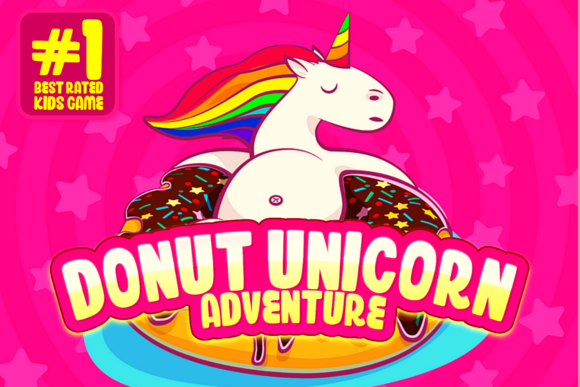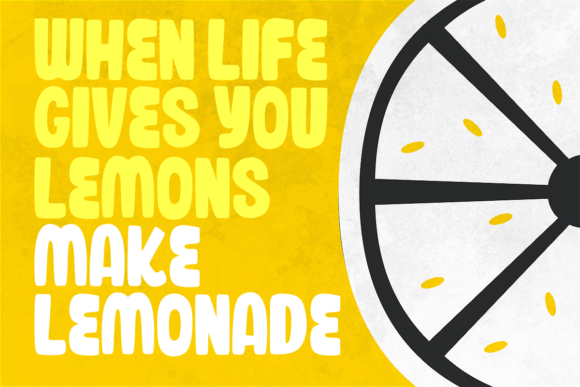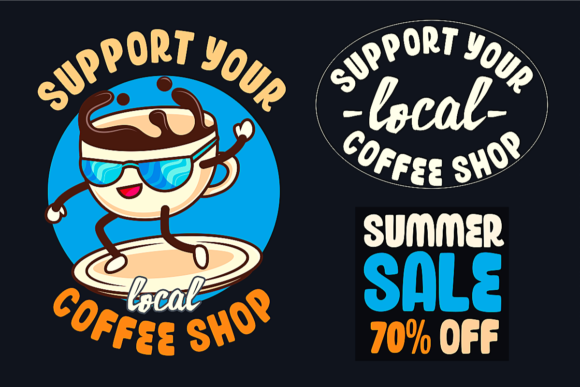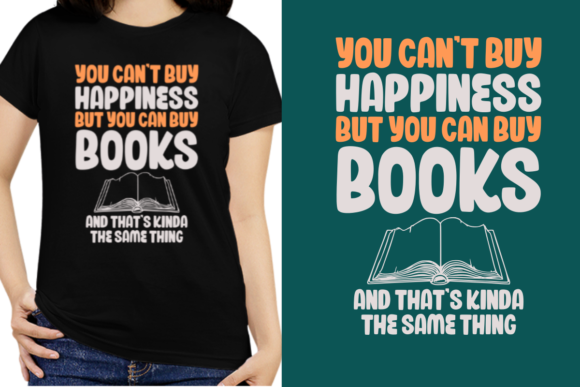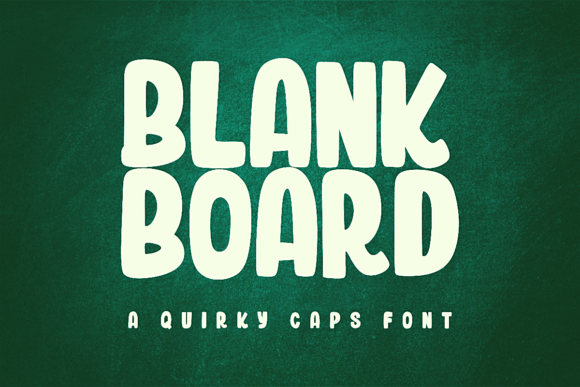
Bring Your Designs to Life with Blank Board Font
Have you ever stared at a blank canvas, unsure of where to start? The blank page can be intimidating, but it’s also an opportunity to create something truly unique. For designers, this moment of uncertainty is a chance to unleash their creativity and bring their ideas to life.
That’s where Blank Board Font comes in – a bold and chunky display font designed to take your designs to the next level. Masterfully crafted to add a touch of personality to your work, Blank Board Font is the perfect tool for any creative project. Whether you’re working on a branding project, designing a website, or creating a social media campaign, this font is sure to make your work stand out.
With Blank Board Font, you’ll be able to add a unique touch to your designs, making them truly unforgettable. Its versatility and bold character make it a valuable addition to any designer’s toolkit, and its potential to elevate your work is unmatched.
Blank Board Font Key Features
- Font Family: Blank Board is a sans-serif font family designed for use on digital signage and display systems.
- Font Size: Blank Board is available in 8 different font sizes, ranging from 24 to 144 points, to cater to various display requirements.
- Resolution: Optimized for high-resolution displays, Blank Board supports resolutions up to 4K (3840 x 2160 pixels) for crisp and clear text rendering.
- Unique Characteristic: Blank Board features a unique ‘blank’ character set, allowing for easy customization and modification of the font to suit specific display needs.
Designer Review: Blank Board Font
Overall, I’m impressed with Blank Board Font, a modern sans-serif typeface designed for a clean and minimalist aesthetic. It shines in ✨ digital applications ✨, where its sleek lines and high x-height make it perfect for displaying short lines of text. It’s also great for ✨ logo designs ✨, as its simplicity allows for creative experimentation with colors and patterns.
- ✨ High legibility: Blank Board Font’s clear typography ensures that your message is easily understood.
- ✨ Versatility: It works well in both digital and print media, making it a great choice for various projects.
- ✨ Minimalist design: The typeface’s clean lines and simple shape make it perfect for modern designs.
However, I do have some concerns about Blank Board Font’s limitations. ⚠️ Limited font sizes: At smaller font sizes, the typeface can become difficult to read. ⚠️ Limited language support: Blank Board Font may not support some languages or character sets, which can limit its use in certain projects.
Overall, Blank Board Font is a great addition to any designer’s toolkit. While it may have some limitations, its versatility and clean design make it a great choice for a wide range of projects. I would recommend it for digital applications, logo designs, and other modern design projects where a clean and minimalist aesthetic is desired.
Blank Board Font is commonly used for: Creating minimalist designs, Adding a touch of modernity to text elements, and Enhancing the overall aesthetic of a project. This font is ideal for use in branding materials, social media graphics, and presentations.
To get the most out of Blank Board Font, try combining it with other minimalist fonts, using it in bold or italic styles, and experimenting with different font sizes and colors.